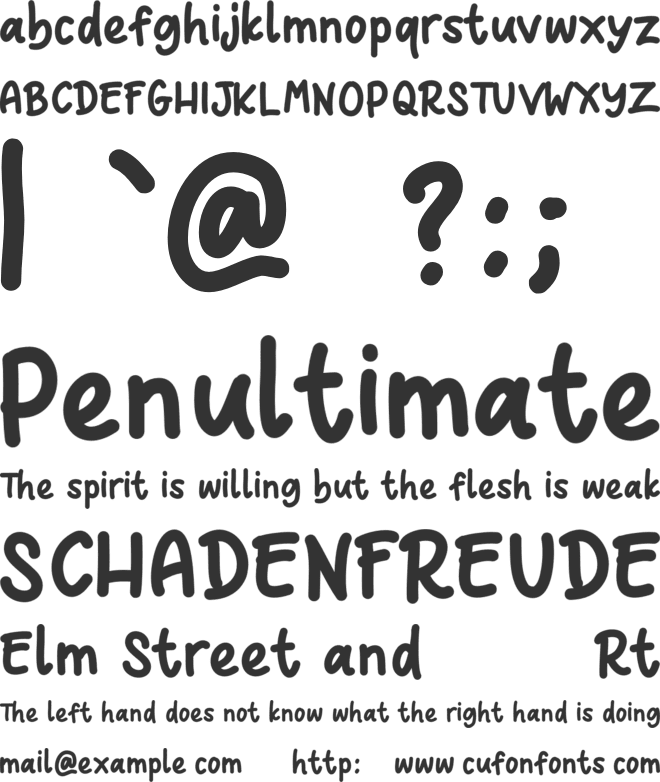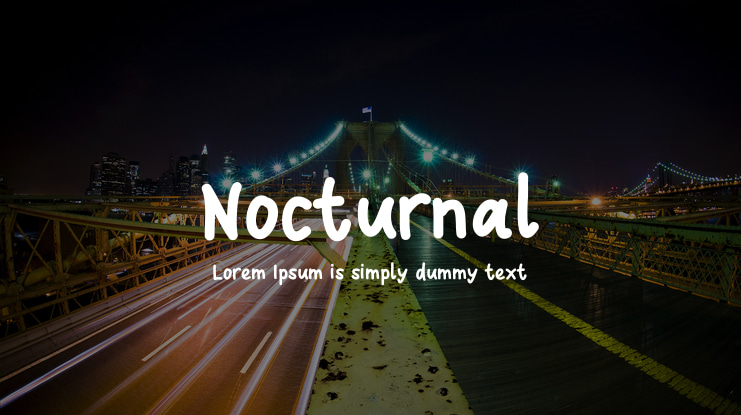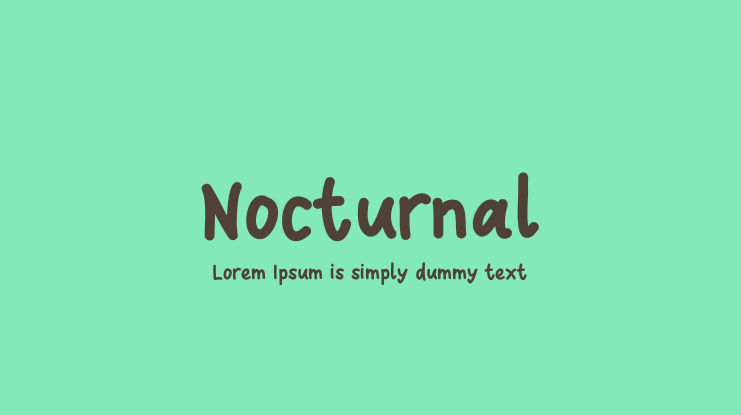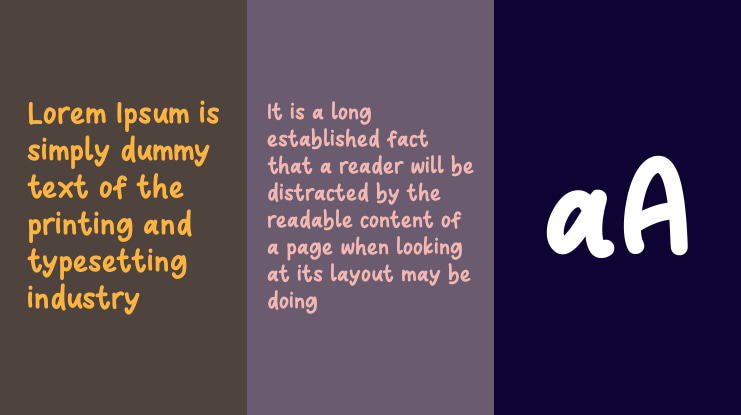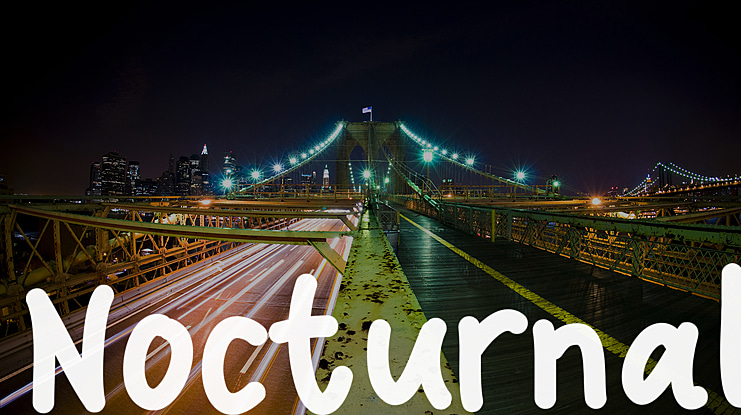
Nocturnal Font
Introducing!!! Nocturnal Family
Nocturnal consists of 2 fonts and extra swash equipped with international language Our latest fonts support all your design needs that have artificial tastes, look stylish and elegant Nocturnal is Perfect for Product Packaging,product design , label,logo,photography,invitation,branding,stationery, and any projects